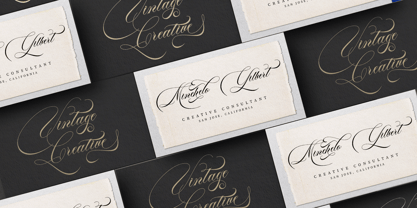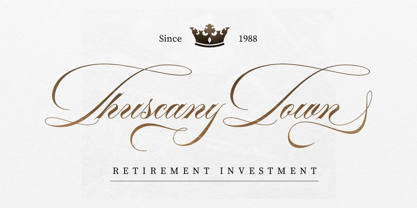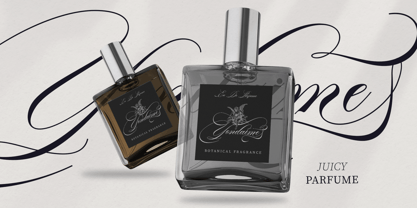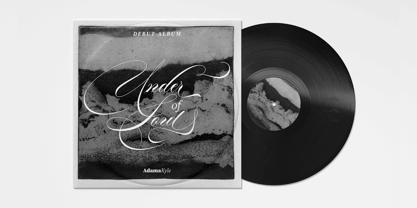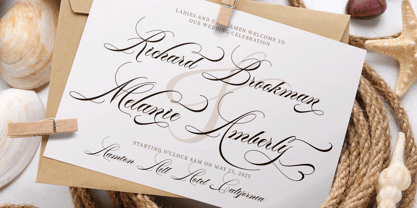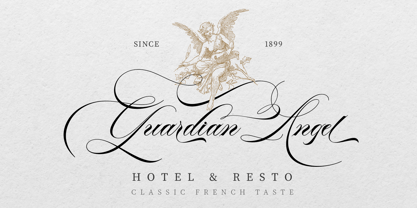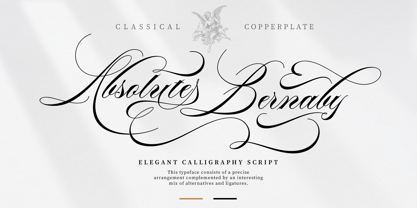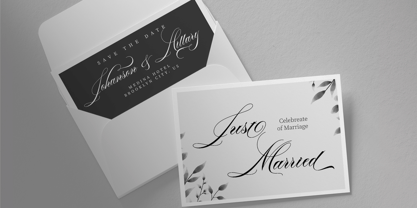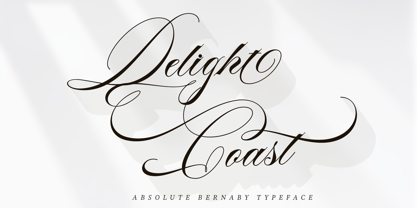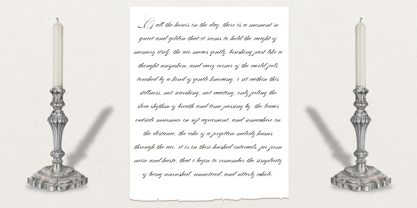
Absolute Bernaby
by HKL Studio
The Absolute Bernaby Font Family was designed by T Haikal Budillah and published by HKL Studio. Absolute Bernaby contains 1 styles.
Absolute Bernaby – A Refined Calligraphy Typeface with Classic Elegance and Modern Grace
Absolute Bernaby is a sophisticated calligraphy typeface that seamlessly blends timeless classic beauty with contemporary elegance. Crafted with precision and care, every curve and stroke in this font is designed to evoke luxury, finesse, and a sense of refined artistry.
This typeface features graceful letterforms with soft, flowing lines that mimic the fluidity of hand-drawn script. It is the perfect choice for high-end design projects such as wedding invitations, luxury branding, product packaging, fashion editorials, and other creative works that demand a polished and elegant aesthetic.
Absolute Bernaby comes complete with a rich selection of stylistic alternates and custom ligatures, allowing for versatile and expressive typography. These features offer endless creative possibilities, enabling you to craft unique, elegant, and highly personalized typographic compositions.
Key Features:
Elegant calligraphy style with a balance of classic and modern influences
Smooth and well-proportioned letterforms with exquisite detail
Luxury stylistic alternates to enhance your creative expression
Exclusive ligatures for natural flow and aesthetic refinement
Ideal for premium branding, invitations, packaging, editorials, and more
Absolute Bernaby is more than just a font—it is a statement of elegance and sophistication. Let your designs stand out with a timeless typographic voice that exudes beauty and grace.